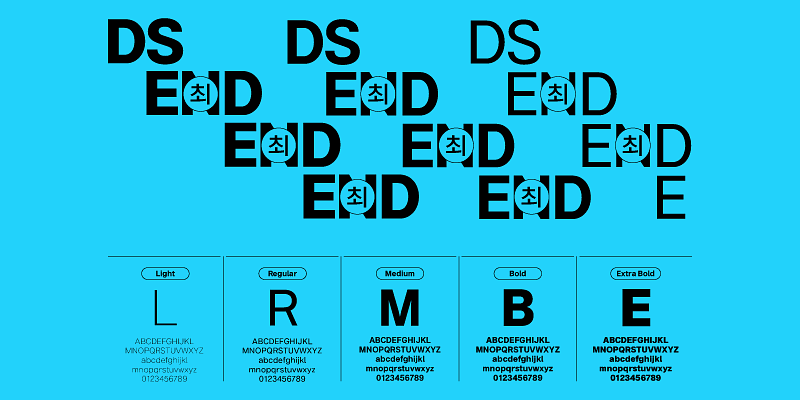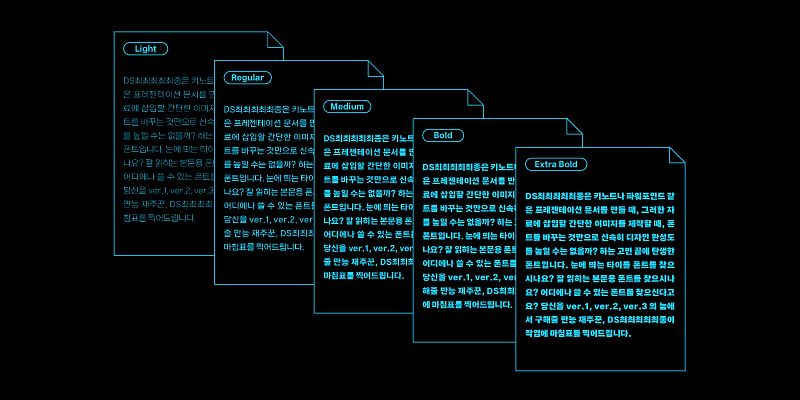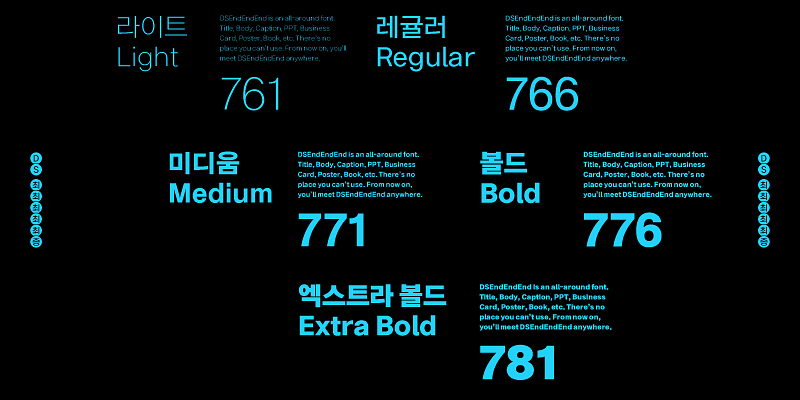
When crafting presentation documents like Keynote or PowerPoint, a simple change such as switching your font could drastically enhance its appearance. This is where DS EndEndEnd comes in, a font inspired by the idea of refining your document’s look. DS EndEndEnd Light provides versatility, suitable for everything from impactful titles to finely-set body text, freeing you from the hassle of repeated final version edits. With five weights and optimized grayscale for each weight, it’s an optimized font that looks balanced even when mixing Korean and Roman characters.